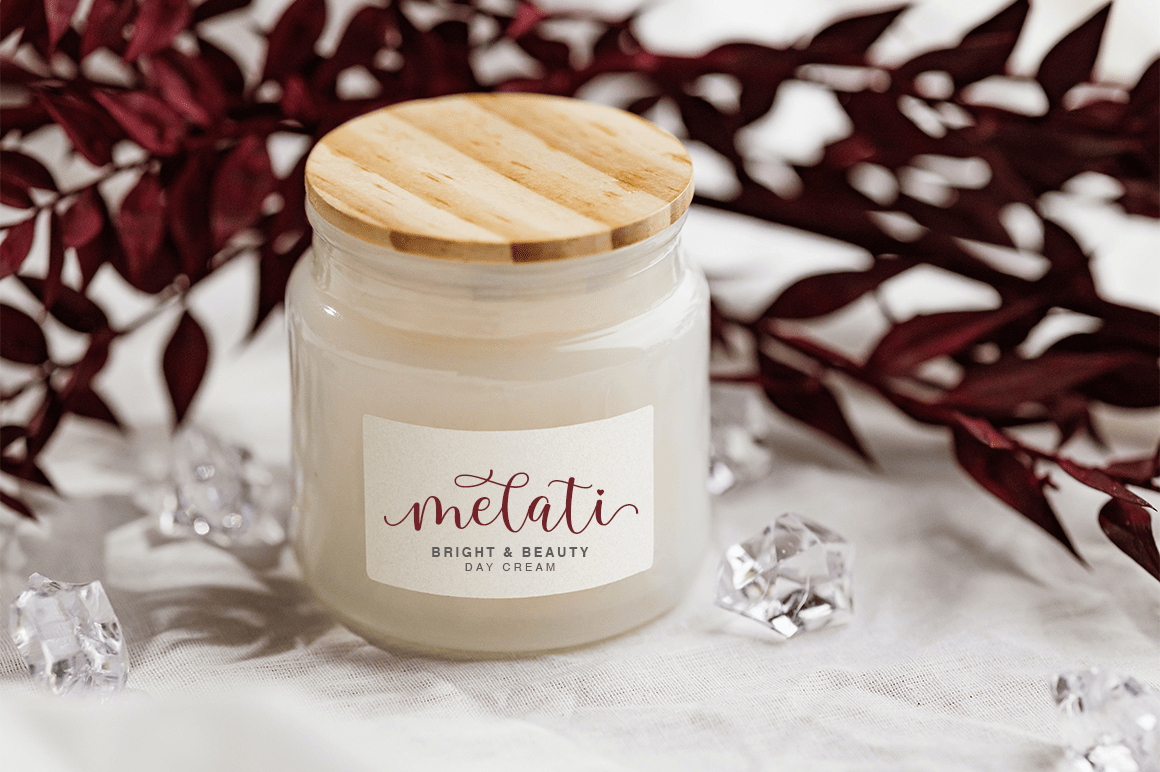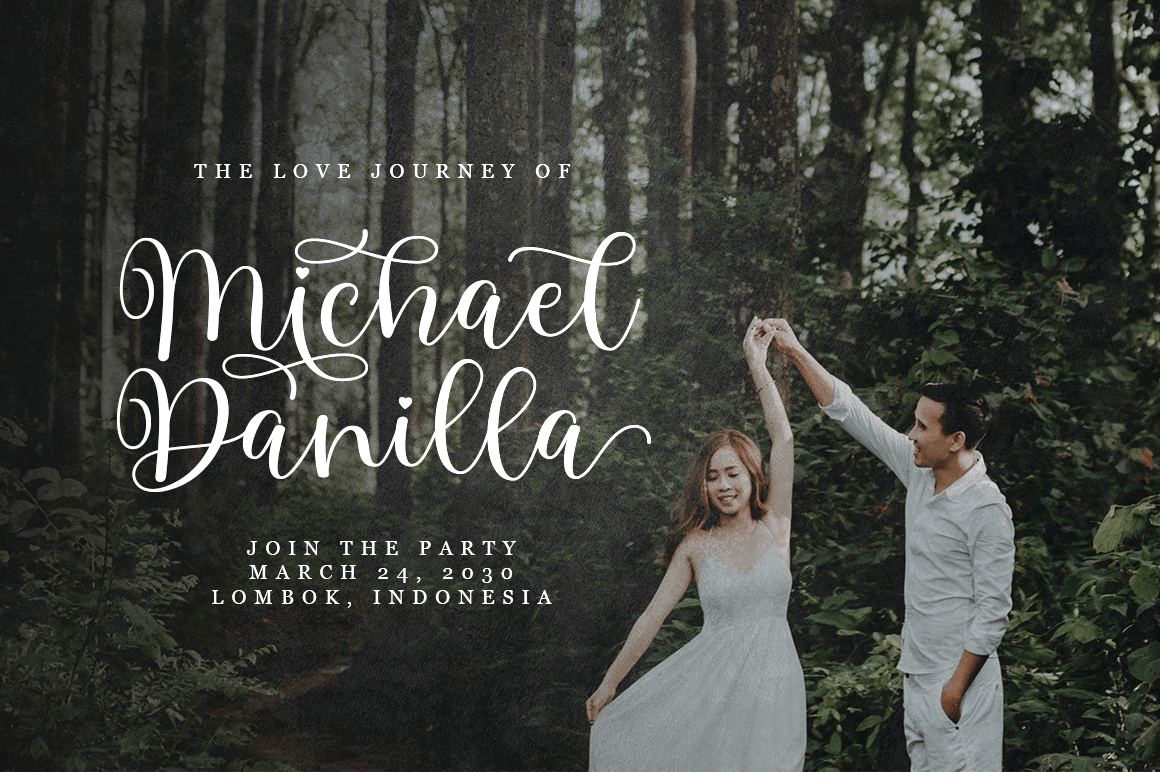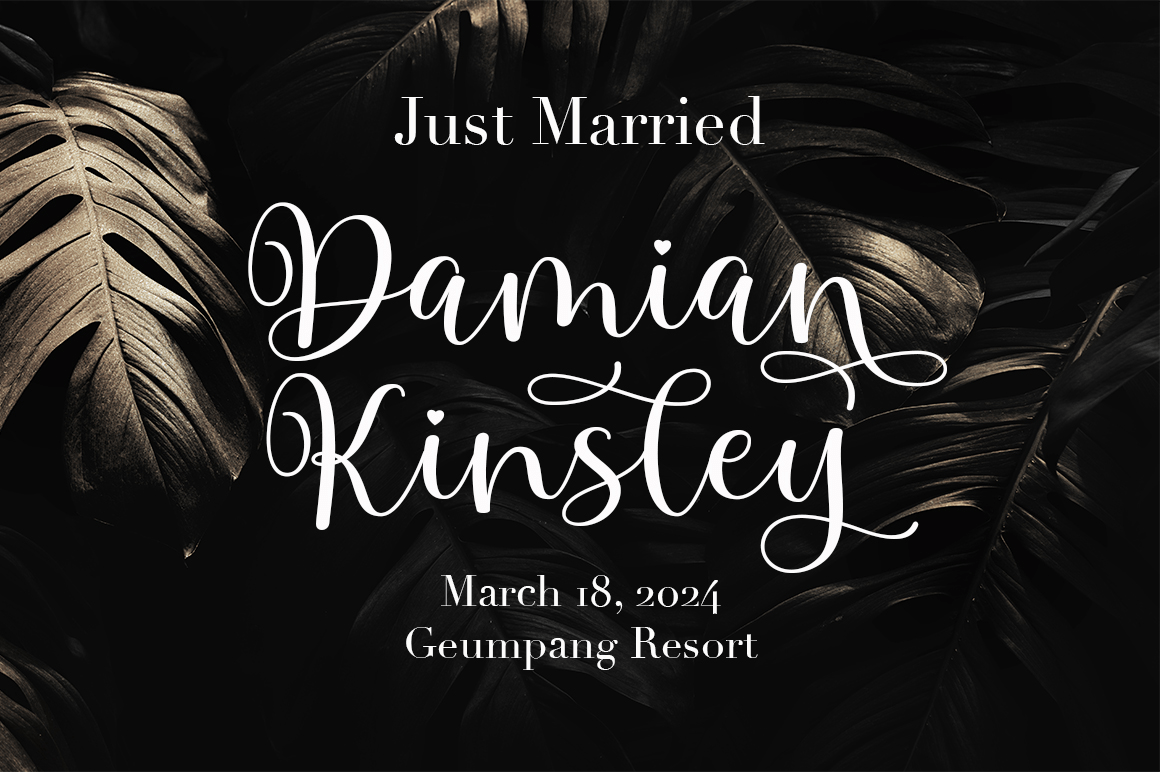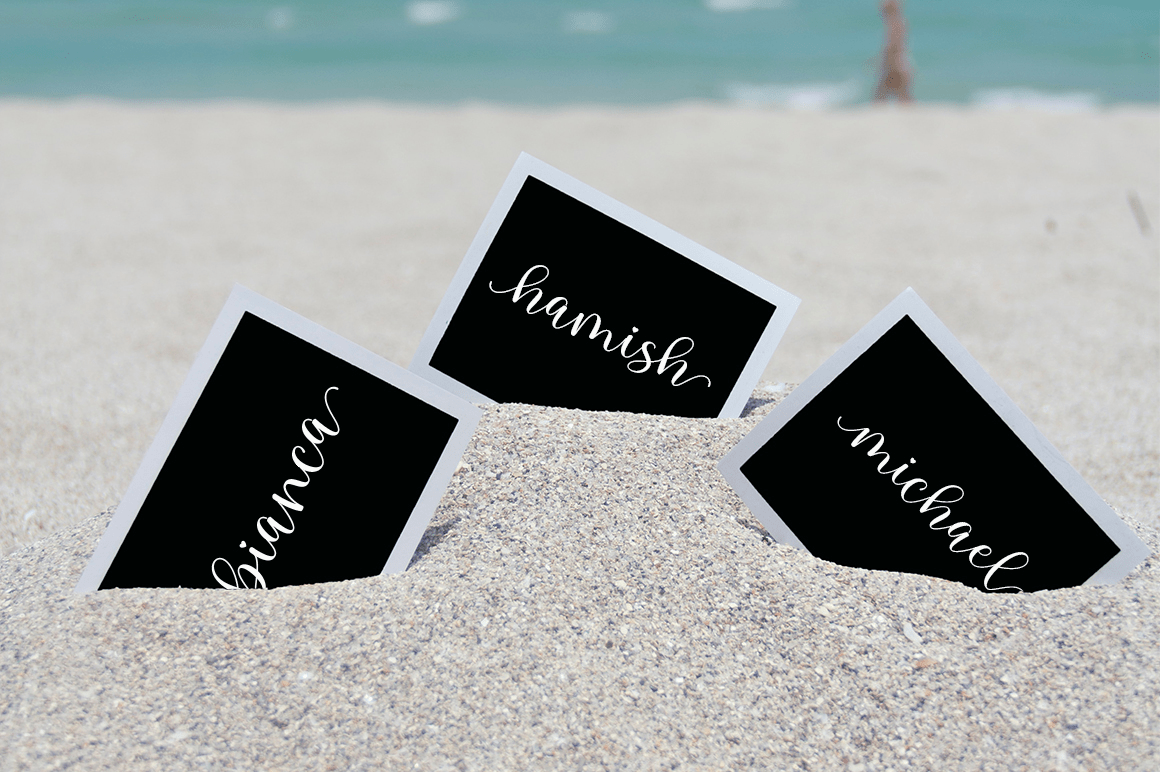
Mahesia Script
About Mahesia Script
Mahesia Script! A new fresh and modern hand lettered font with decorative characters and a dancing baseline. Mahesia Script was inspired by clean handwriting with a natural flow, and it features fabulous beginning and ending lowercase swashes as well…